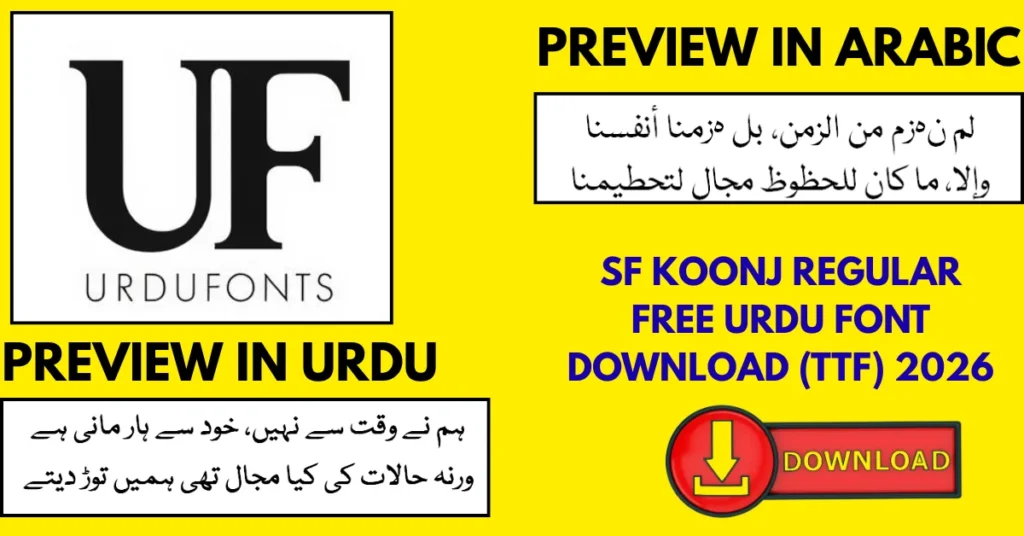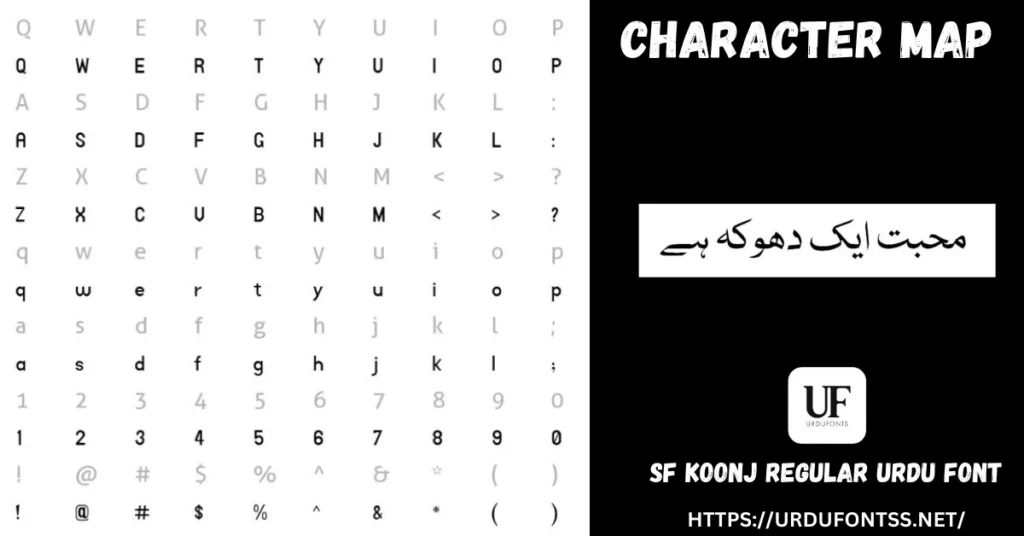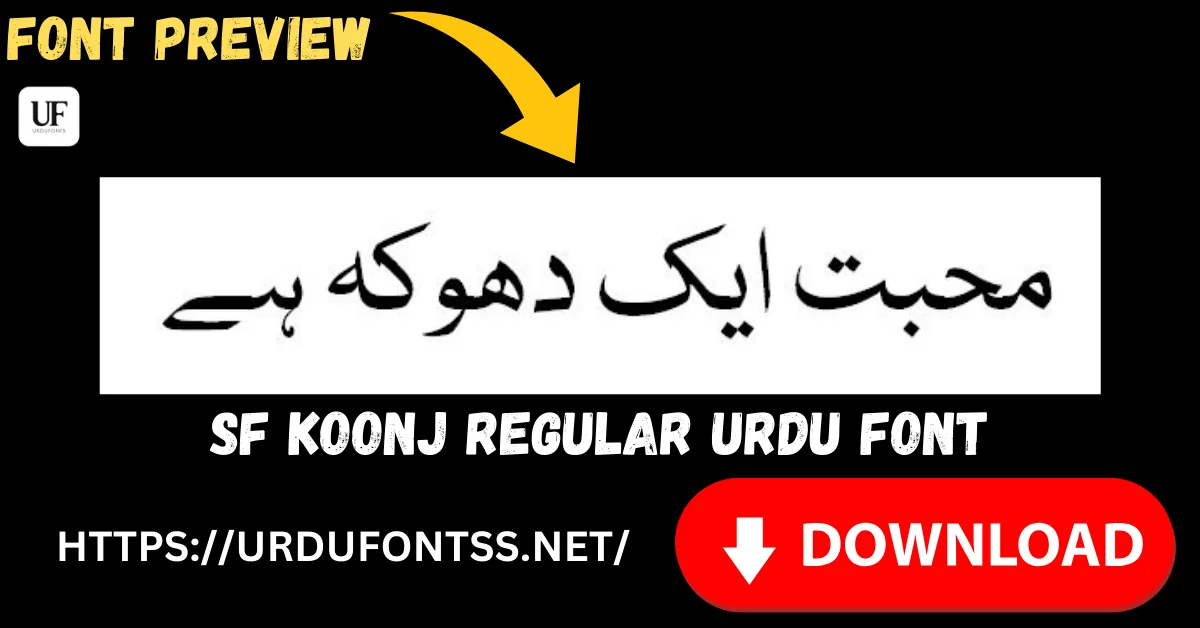
Sf Koonj Regular Free Urdu Font Download (TTF)
About Sf Koonj Regular Urdu Font
Sf Koonj Regular is a well-balanced Urdu TrueType font known for its smooth strokes and elegant letter connections. This font delivers a classic Urdu writing feel while maintaining clarity on both digital screens and printed material. Its regular weight makes it comfortable for long reading sessions, especially in poetry and literary content.
The Sf Koonj Regular font is widely preferred for Urdu poetry, book layouts, and quote designs where a traditional look is required. Due to its neat spacing and consistent flow, it is also suitable for blog articles, educational material, and Islamic content. Designers often choose this font when they want simplicity without losing the beauty of Urdu calligraphy.
Difference Between Sf Koonj Regular and Other Urdu Fonts
What sets Sf Koonj Regular apart from many other Urdu fonts is its balanced structure. While some Urdu fonts focus heavily on artistic curves, this font prioritizes readability and spacing. Compared to heavier Nastaliq styles, Sf Koonj Regular feels lighter and more modern, making it suitable for both casual reading and structured layouts without overwhelming the text.
Best Urdu Fonts Similar to Sf Koonj Regular
If you like the clean appearance of Sf Koonj Regular, you may also find similar results with other lightweight Urdu fonts that focus on readability. Fonts with regular weight and simple strokes often provide a comparable experience, especially for digital content and blogging. Trying multiple fonts helps designers choose the best match for their specific layout needs.
Why Sf Koonj Regular Is So Popular
The popularity of Sf Koonj Regular comes from its versatility and traditional appearance. It adapts well to modern design tools while preserving the essence of classic Urdu typography. This balance makes it a trusted choice among designers, writers, and content creators.
Conclusion
Sf Koonj Regular is a practical Urdu font that strikes a clean balance between simplicity and visual appeal. Its smooth structure makes it easy to read across digital platforms, while the handwritten touch keeps the text natural and engaging. From poetry layouts to everyday Urdu content, this font adapts well without creating formatting issues.
For users who need a lightweight, readable, and flexible Urdu typeface, Sf Koonj Regular remains a dependable option. With broad software support and easy installation, it continues to be a solid choice for designers, writers, and content creators looking for consistent Urdu typography.